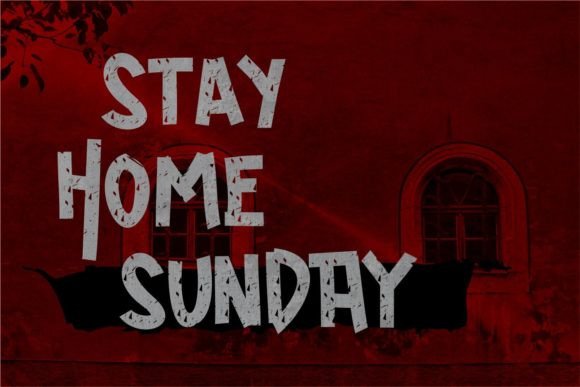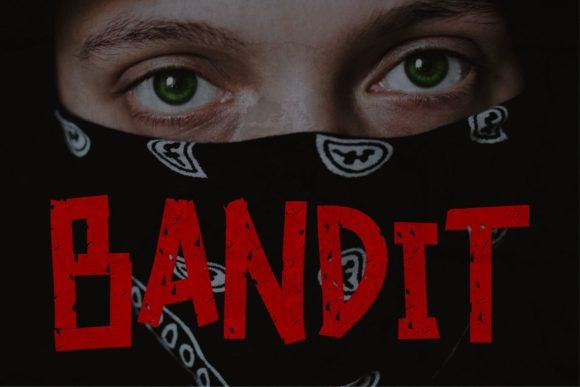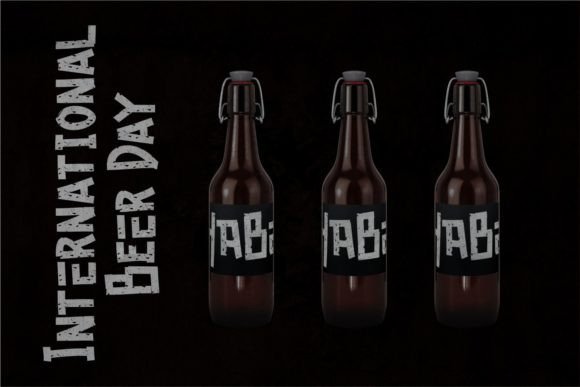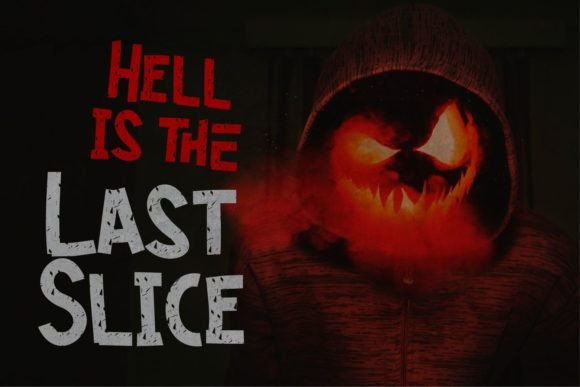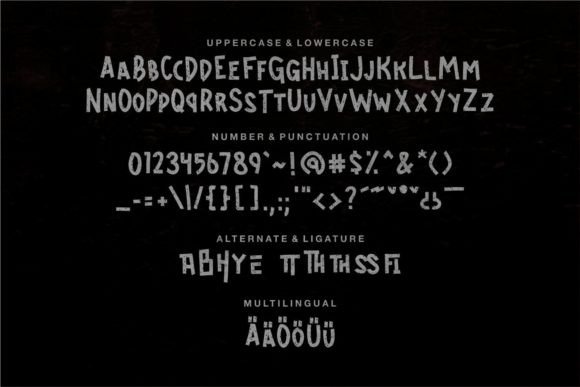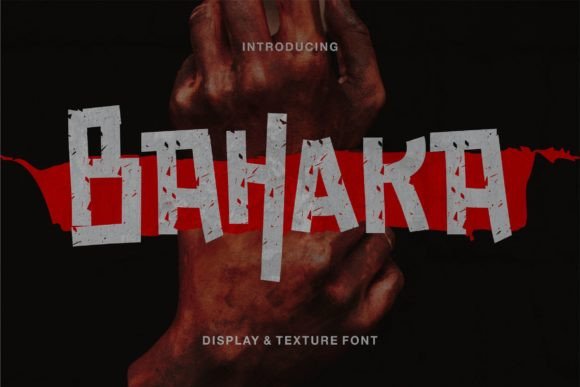
Bahaka Font: Unleash the Power of Distressed Typography
In the world of typography, fonts play a crucial role in conveying the tone and personality of a brand or design. For designers and crafters looking to add a touch of grunge and edginess to their work, Bahaka Font is an excellent choice. This cool and unique textured display font is designed to help you achieve an original, distressed look that will leave a lasting impression on your audience.
The Characteristics of Bahaka Font
Bahaka Font boasts a distinctive, distressed texture that sets it apart from other fonts. Its letters are carefully crafted to resemble worn, vintage typography, giving your designs a rugged, grunge aesthetic. The font’s texture is rough and uneven, with a subtle worn effect that adds depth and character to your text.
Key Features of Bahaka Font
- Unique Textured Design: Bahaka Font features a one-of-a-kind textured design that gives your text a worn, distressed look.
- Distressed Letters: Each letter is carefully crafted to resemble worn, vintage typography, adding a touch of grunge to your designs.
- Display Font: Bahaka Font is a display font, making it perfect for headlines, titles, and other large-format text.
Uses of Bahaka Font
Bahaka Font is versatile and can be used in a variety of design projects, including:
- Branding and Logo Design: Add a touch of grunge to your brand’s logo or identity.
- Poster and Flyer Design: Create eye-catching posters and flyers with a distressed, vintage look.
- Social Media Graphics: Add some edge to your social media graphics and stand out from the crowd.
- Crafting and Scrapbooking: Use Bahaka Font to add a personal touch to your crafting and scrapbooking projects.
Tips for Using Bahaka Font
To get the most out of Bahaka Font, here are some tips to keep in mind:
- Use it Sparingly: Bahaka Font is a display font, so use it sparingly to add emphasis to your text.
- Experiment with Colors: Try pairing Bahaka Font with bold, bright colors to create a striking contrast.
- Add Texture and Patterns: Combine Bahaka Font with textures and patterns to create a unique, layered look.
Bahaka Font is a unique and versatile font that can add a touch of grunge and edginess to your designs. With its distressed letters and textured design, it’s perfect for designers and crafters looking to create original, eye-catching work. Whether you’re working on a branding project, social media graphics, or crafting and scrapbooking, Bahaka Font is an excellent choice.